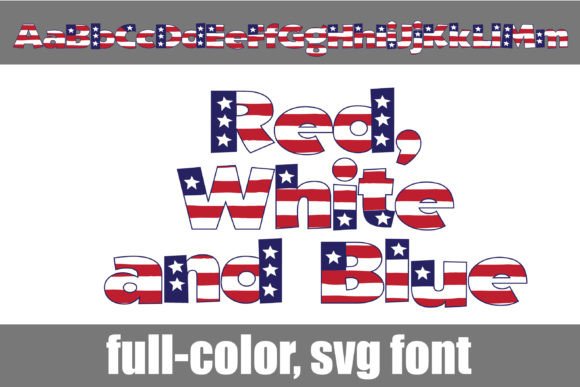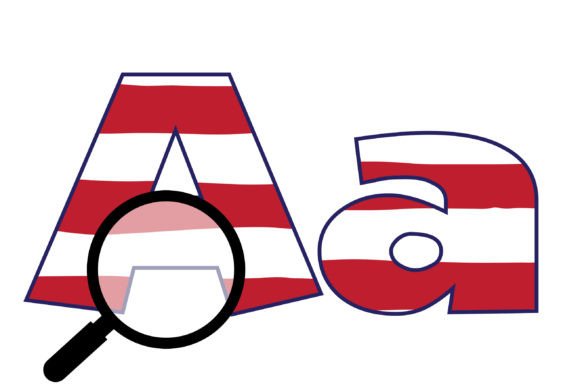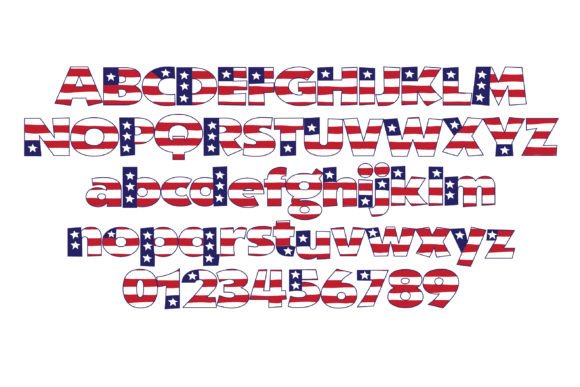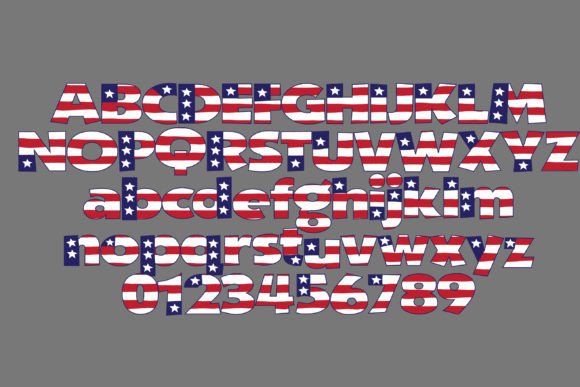
Red, White, and Blue Font
About the Red, White, and Blue Font
We are excited to introduce Red, White, and Blue Font, a must-have typeface for any serious designer. This full-color font features a bulky sans serif font in a patriotic color palette. There is an alt case w/ additional colors you can access through your system or Silhouette’s glyph map. This font works best for titles, displays, posters and more. Please note color fonts will show as black in non compatible programs. This font type is compatible with Silhouette Studio.